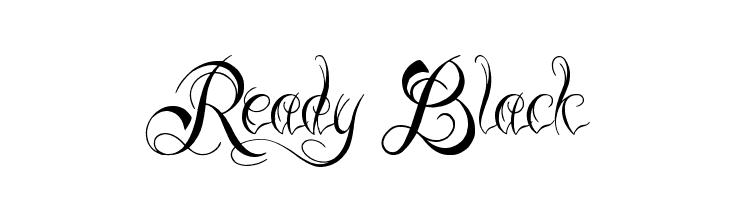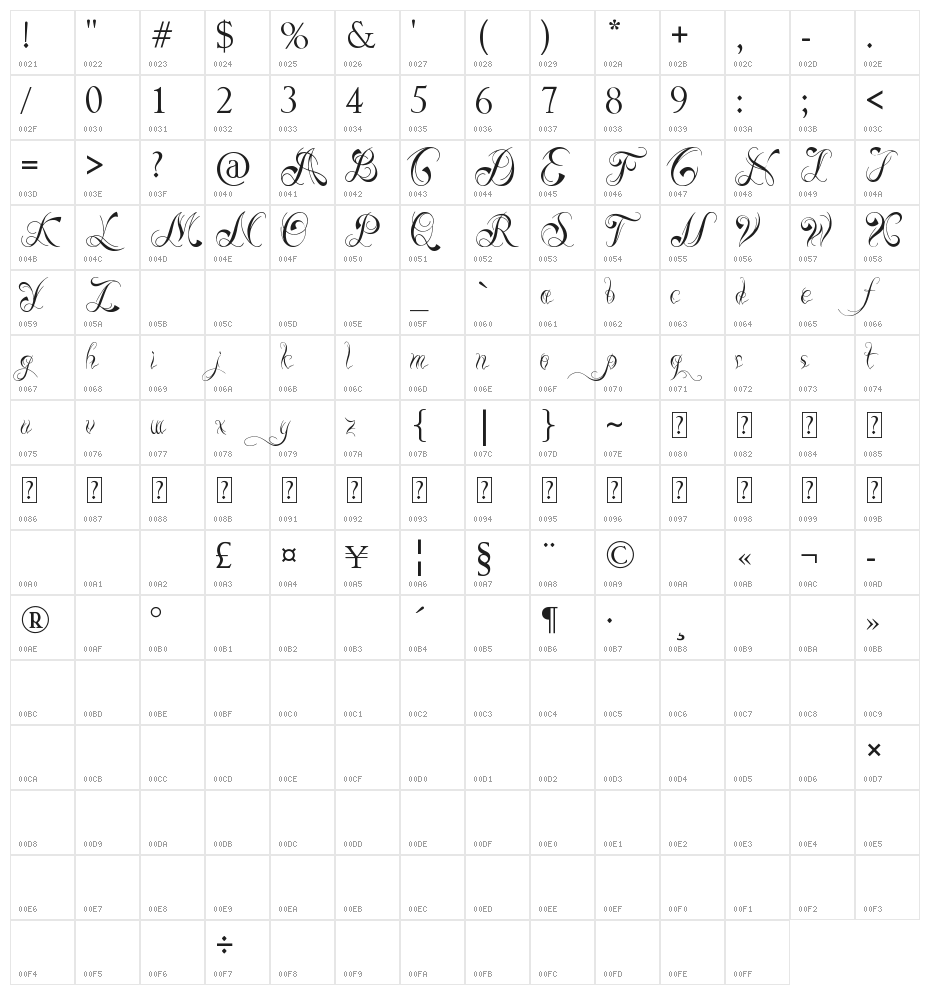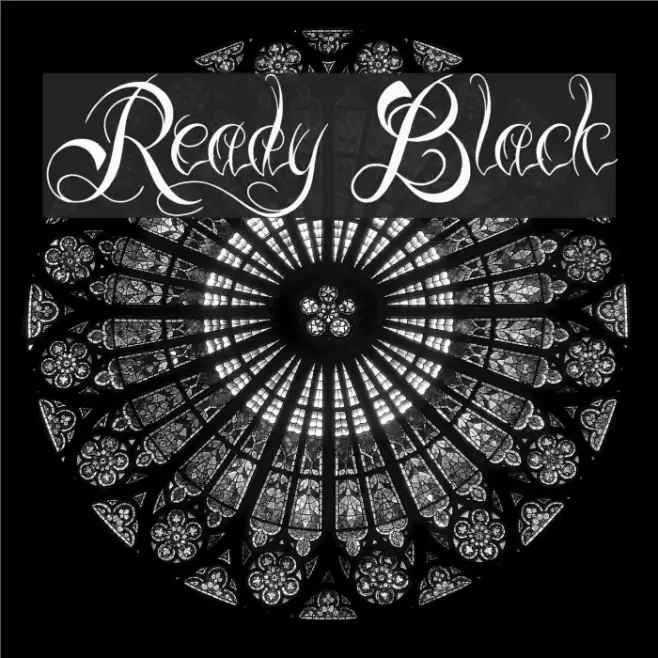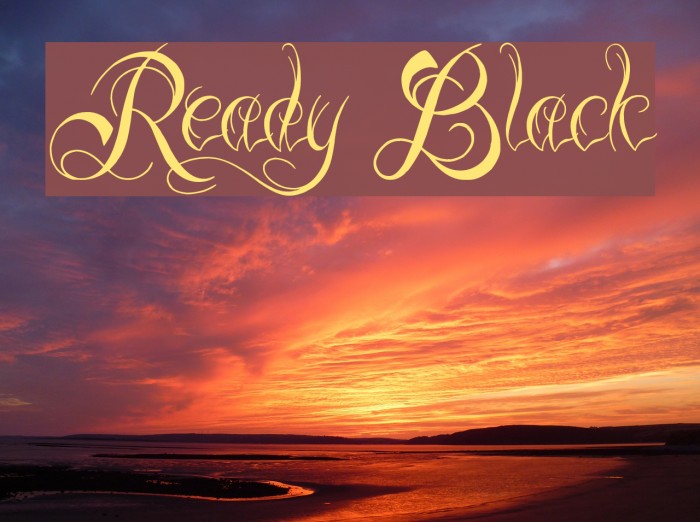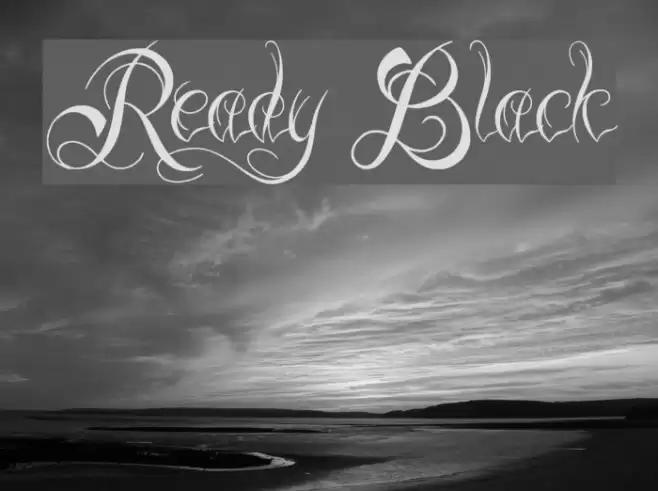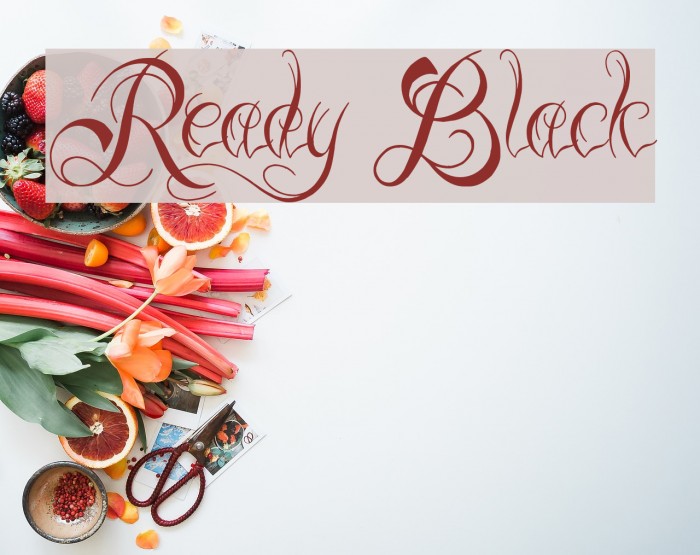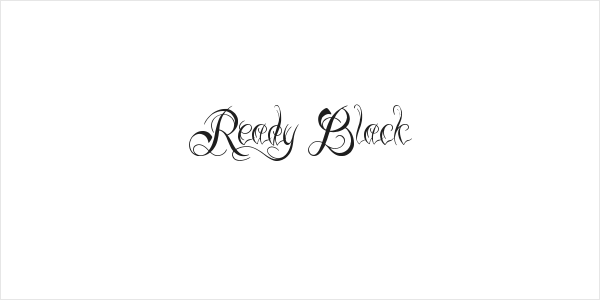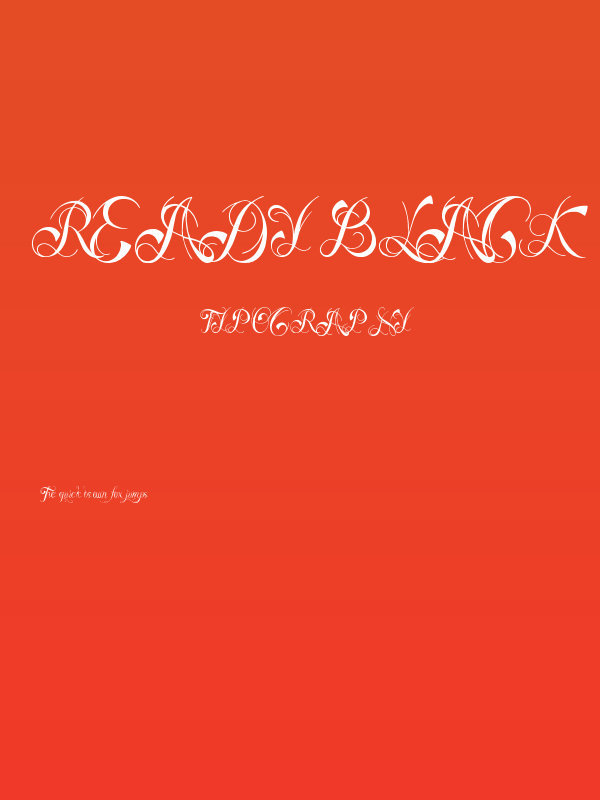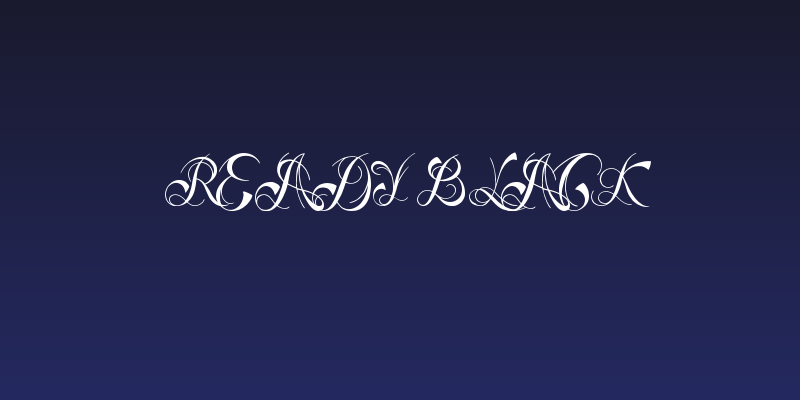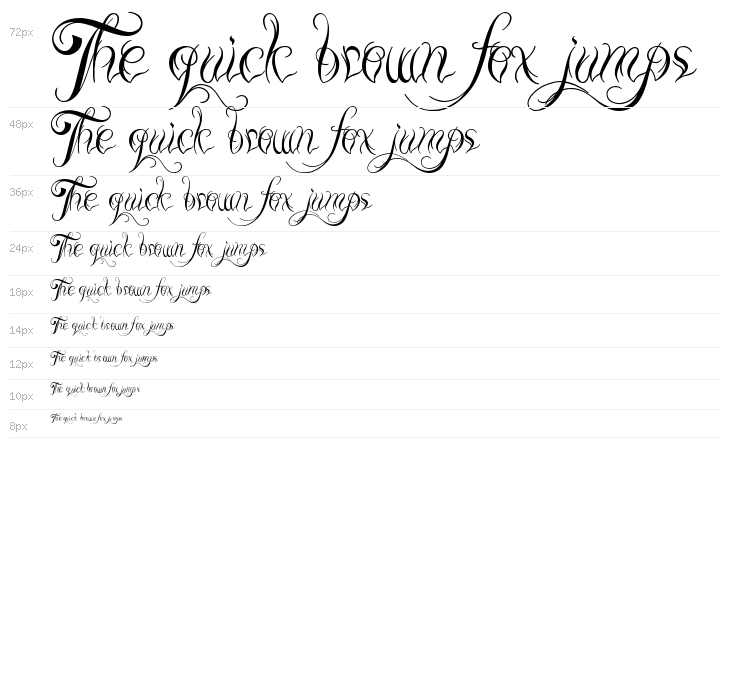
Ready Black Font
Ready Black Description
This font features an elegant and sophisticated script style with intricate swashes and flourishes. The uppercase letters are highly decorative, showcasing a sense of grandeur and formality. The lowercase letters maintain a consistent flow, adding to the font's overall graceful appearance. The numerals are bold and clear, providing a strong contrast to the delicate letterforms. Special characters are designed with the same attention to detail, ensuring a cohesive look across all glyphs. This font is ideal for projects that require a touch of elegance and refinement.
| Proposed Projects | Wedding invitations, luxury branding, formal event programs, high-end product packaging. |